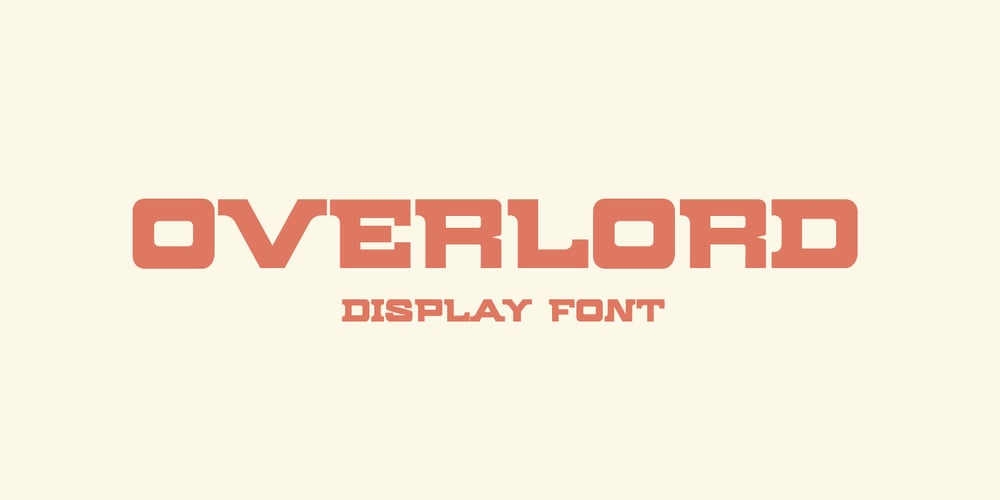
Overlord Font Family was designed by Tuanku Muhammad Iqbal and published by Teweka. Overlord contains 1 styles and family package options. OVERLORD is a bold style font. This font is made in all capital letters. This font is very suitable for branding, logos, logotype and others.Overlord Features : Multilanguange PUA Encoded